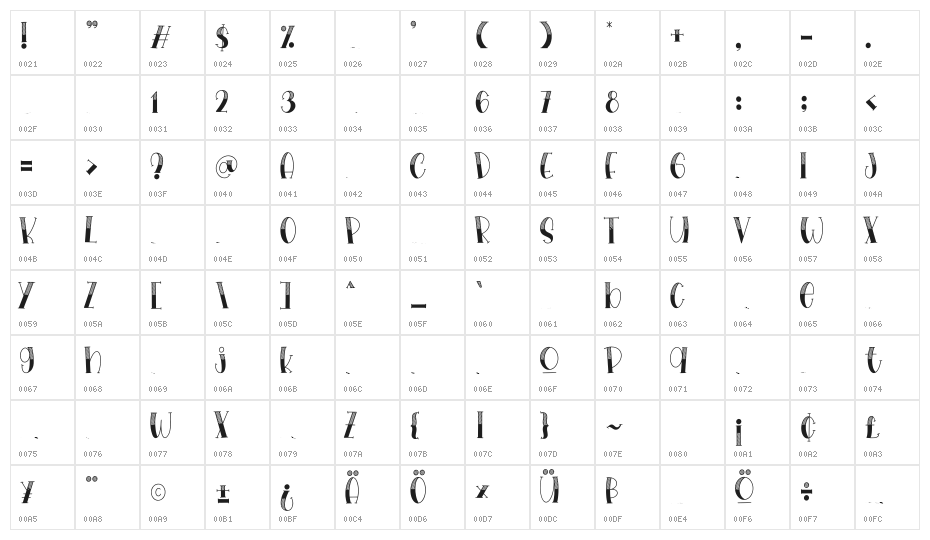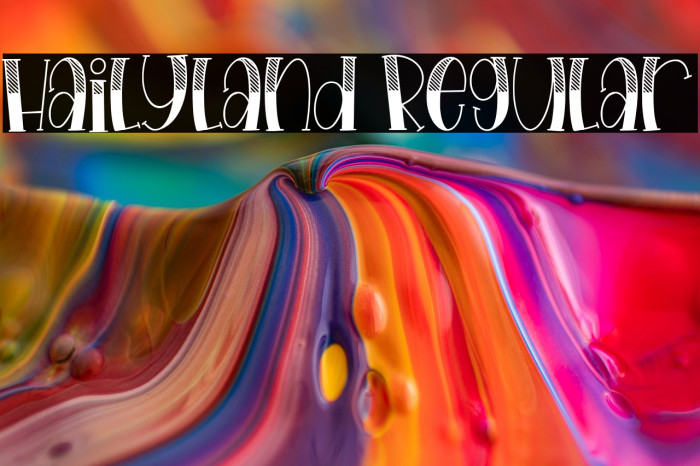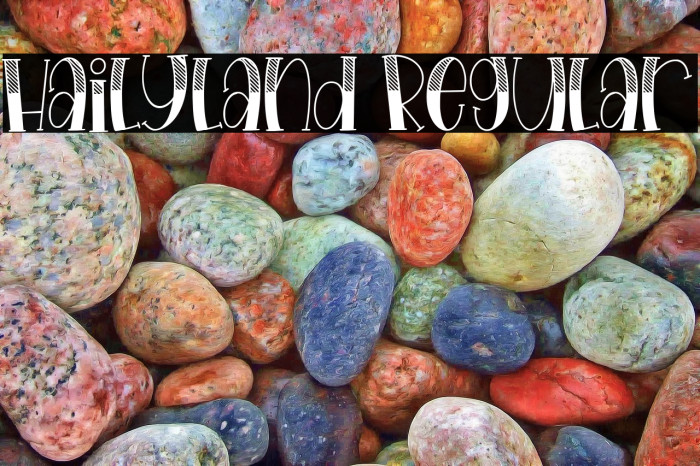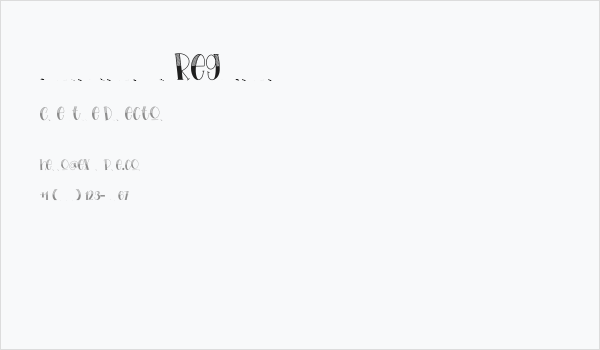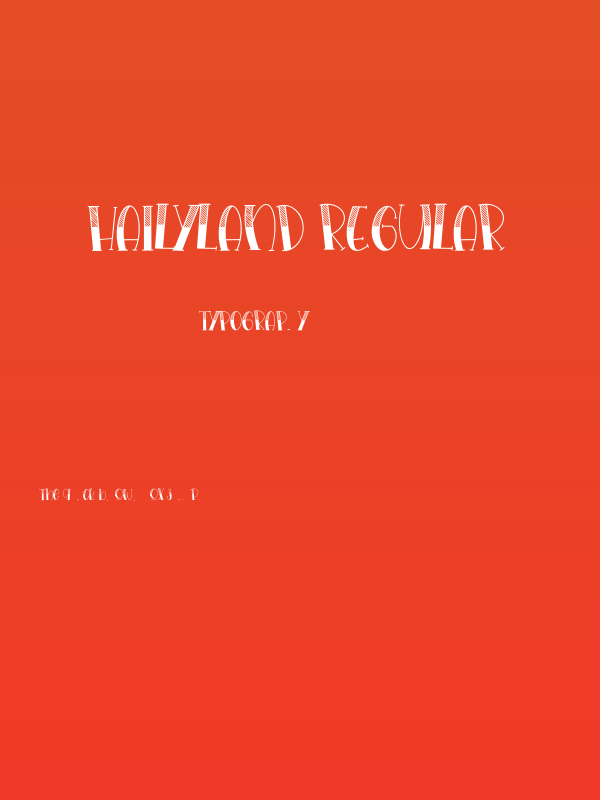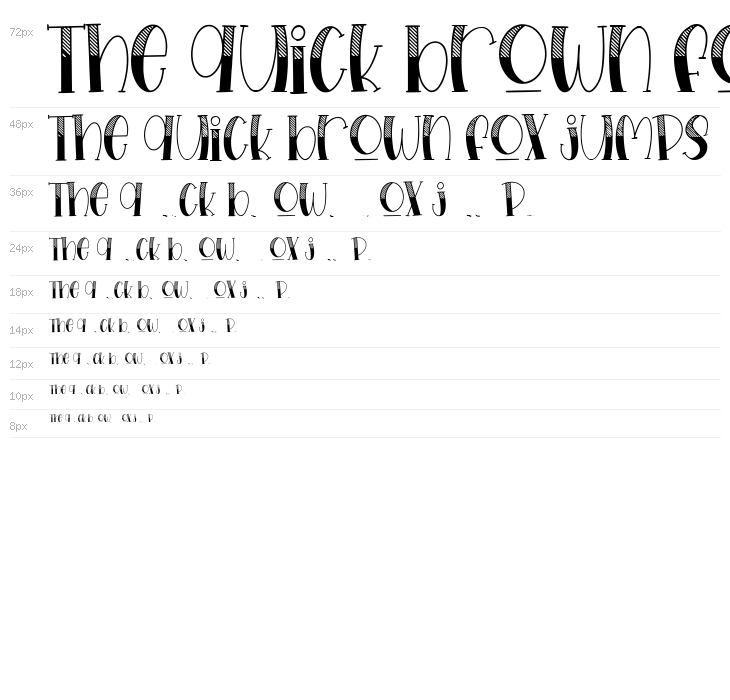
Hailyland Regular Font
Hailyland Regular Description
This font features a unique and playful design with a blend of thick and thin strokes, creating a dynamic and eye-catching appearance. The uppercase letters are bold and slightly condensed, with a whimsical flair that adds character. The lowercase letters maintain a consistent style, complementing the uppercase with their rounded and flowing forms. Numbers and special characters follow the same playful aesthetic, making them stand out. The font's decorative elements and high contrast in stroke thickness make it ideal for creative projects.
Proposed ProjectsIdeal for posters, invitations, branding, and any project requiring a fun and engaging typeface.